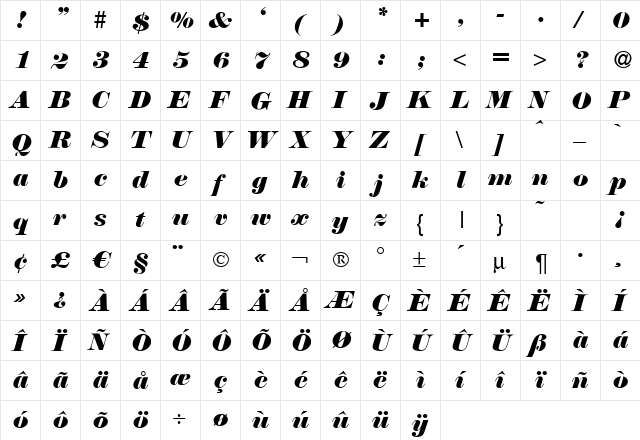
N790-Modern Italic
Design Context for N790-Modern Typeface
N790-Modern offers clean, dependable letterforms without strong stylistic allegiance, making it a practical choice for designers who need flexibility. Its italic angle brings a sense of urgency and motion to the letterforms.